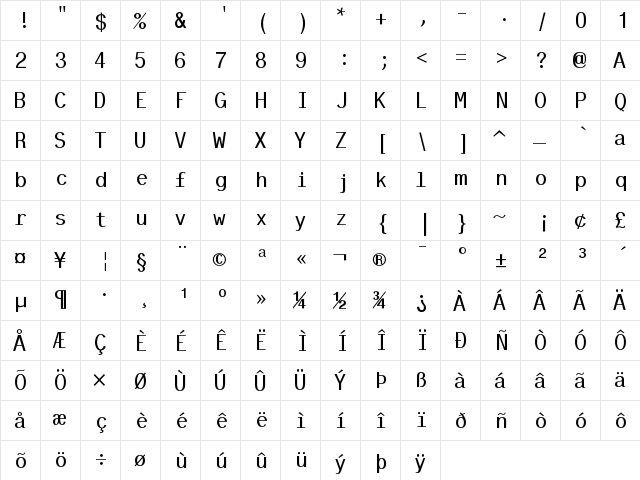
Tt-Kp Regular
Design Context for Tt-Kp Typeface
Tt-Kp offers clean, dependable letterforms without strong stylistic allegiance, making it a practical choice for designers who need flexibility.